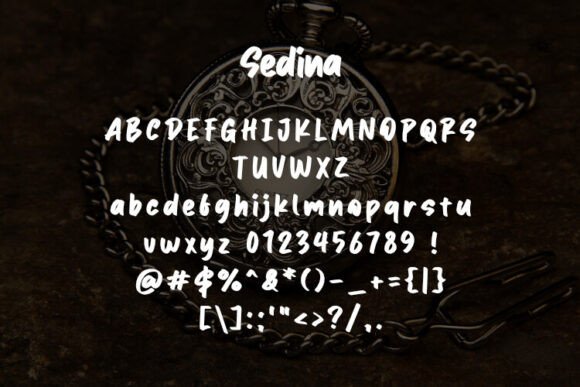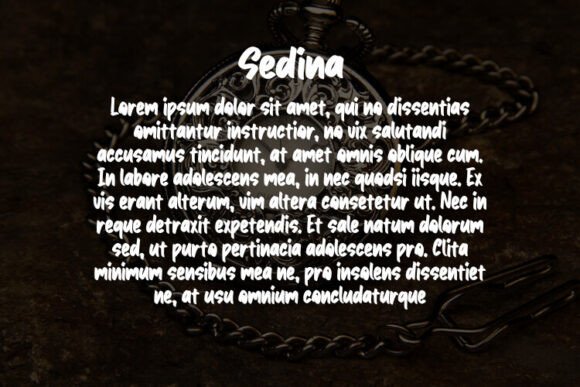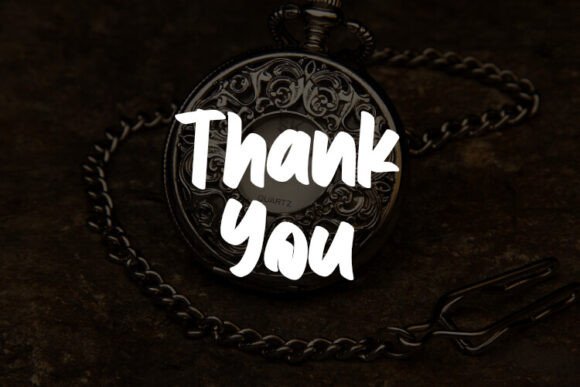
Introduction to Sedina Font
Step into a realm of creative possibility with β€œSedina”, a versatile font specially crafted for fashion and apparel design.
Key Features of Sedina Font
Why Choose Sedina Font?
Sedina Font offers exceptional quality and versatility, making it a valuable addition to your design toolkit. Whether you’re creating for personal projects or commercial use, Sedina Font delivers professional results.